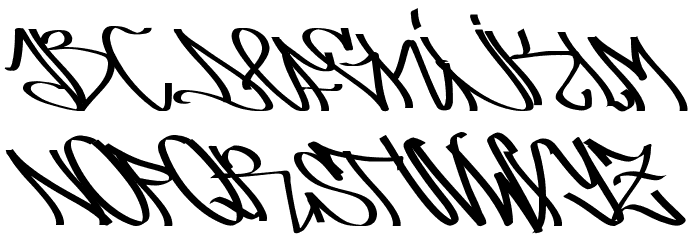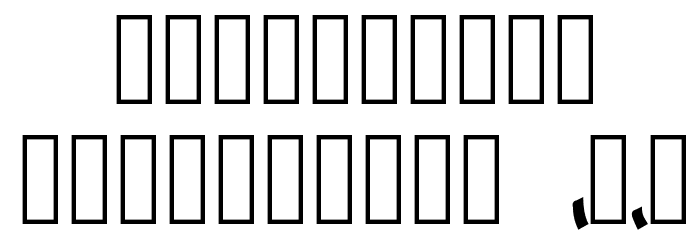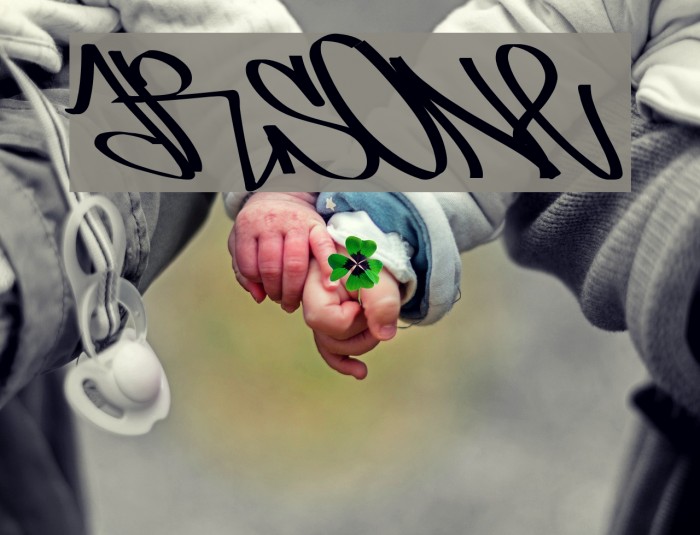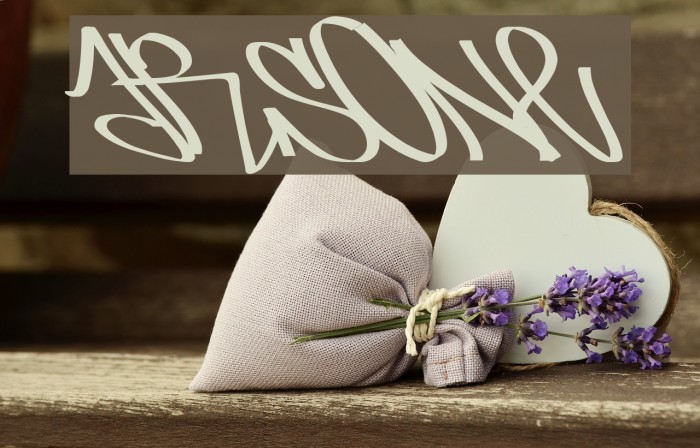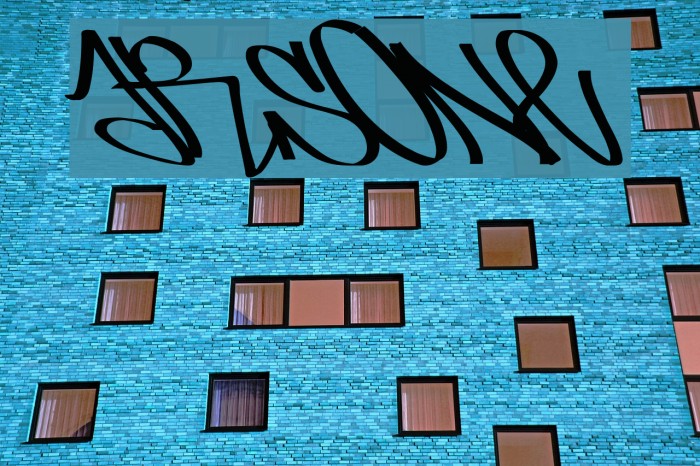
arsone Font
This font exhibits a dynamic and expressive style, reminiscent of graffiti art. The characters are bold and fluid, with exaggerated curves and sharp angles that create a sense of movement and energy. The uppercase letters are particularly striking, with a unique flair that makes each character stand out. The lowercase letters maintain the same energetic style, ensuring consistency throughout the text. The font's overall appearance is both artistic and rebellious, making it ideal for projects that require a strong visual impact.
A bold, graffiti-inspired font with dynamic and expressive characters.
- Proposed Projects: Ideal for street art designs, urban-themed posters, music album covers, and edgy branding projects.
- Character Spacing: Tight
- Overall Style: Modern, Urban
- Use Case: Logos, Posters, Album Covers